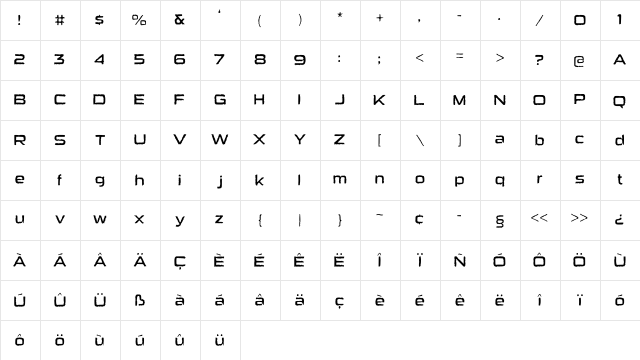
HeavyBomb Font Preview
HeavyBomb HeavyBomb
HeavyBomb Font Details
Design Context for HeavyBomb Typeface
HeavyBomb takes a measured approach to typography — its balanced proportions and neutral character make it a reliable workhorse for both digital and print work.